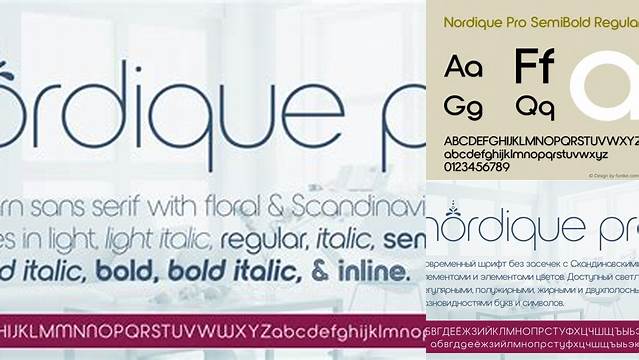
Hey guys, are you on the hunt for a cool and versatile font that's perfect for a wide range of projects? Look no further than Nordique Pro Cyrillic Semibold! This font family is a real gem, especially if you're working on designs that need a touch of modern elegance and readability. And the best part? You can find Nordique Pro Cyrillic Semibold available for free download! Let's dive into everything you need to know about this awesome font, from where to snag it to how to use it like a pro.
What Makes Nordique Pro Cyrillic Semibold Special?
Alright, let's talk about why Nordique Pro Cyrillic Semibold is such a standout choice. This font is part of the broader Nordique Pro family, which is known for its clean lines, modern aesthetic, and excellent readability. The Cyrillic aspect means it supports the Cyrillic alphabet, making it ideal for projects targeting Russian, Bulgarian, Serbian, and other languages that use Cyrillic script. The Semibold weight strikes a perfect balance – it's not too heavy, not too light. This makes it incredibly versatile for various uses, from headlines and titles to body text and even small captions. The design itself is contemporary, with a subtle geometric feel that gives it a unique personality without being overly distracting. It's the kind of font that grabs your attention without screaming for it.
One of the most significant advantages of Nordique Pro Cyrillic Semibold is its versatility. It's like a chameleon, adapting to different design needs with ease. Whether you're working on a website, a poster, a logo, or even a document, this font can seamlessly integrate into your project. The clean, modern design ensures that your text looks sharp and professional, no matter where you use it. It is perfect for brands aiming to portray a sense of sophistication, clarity, and approachability. Imagine using it for a tech startup's website, a fashion magazine's headlines, or a corporate presentation. Nordique Pro Cyrillic Semibold fits right in.
In the world of typography, finding a font that is both aesthetically pleasing and highly functional is like striking gold. Nordique Pro Cyrillic Semibold manages to achieve precisely this. Its design is modern and stylish, yet it doesn't sacrifice readability, making sure your message comes across loud and clear. This is especially crucial when you consider the impact of typography on the overall perception of your brand or project. A well-chosen font can dramatically influence how your audience interprets your content, and Nordique Pro Cyrillic Semibold is a strong choice for making a positive impression. The careful balance of its design elements, like the shape of the letters and the spacing between them, all contribute to a reading experience that is both comfortable and engaging. So, if you are looking for a font that speaks volumes, this one is definitely worth a try.
Moreover, its support for the Cyrillic alphabet opens up a world of possibilities for projects targeting a diverse audience. This font allows you to communicate with a broader global audience, offering a sophisticated and accessible look across various languages. The design choices of the font are not just about aesthetics; they are also about functionality. Its designers have paid close attention to details, such as the balance between different letterforms and the way the characters work together. This level of care ensures that Nordique Pro Cyrillic Semibold performs exceptionally well in various contexts. So, whether you're working on a digital platform, designing print materials, or anything in between, you can rely on this font to deliver your message with both style and clarity. The font can be used in various designs, from branding to editorial content. It is a flexible option for designers looking for a modern and accessible typeface that can enhance their projects and reach a broader audience.